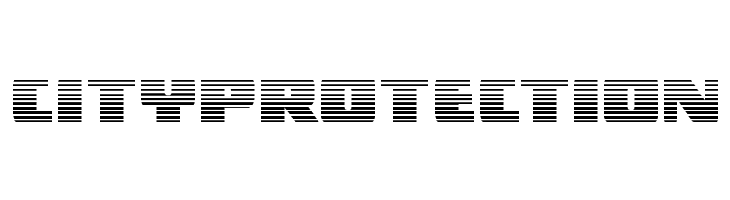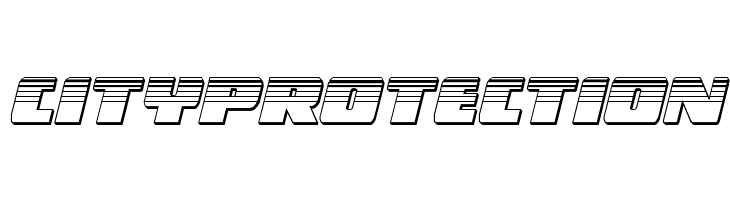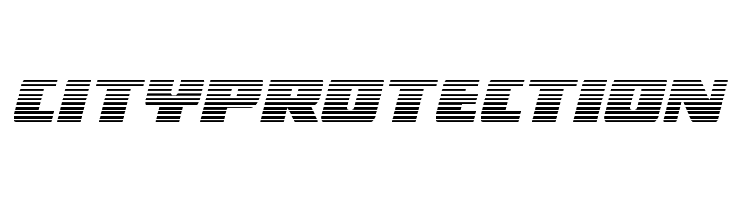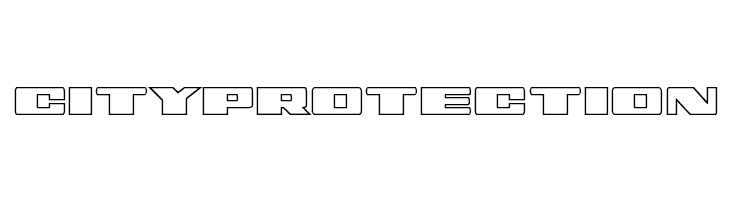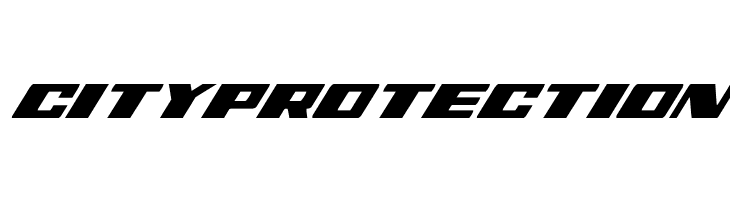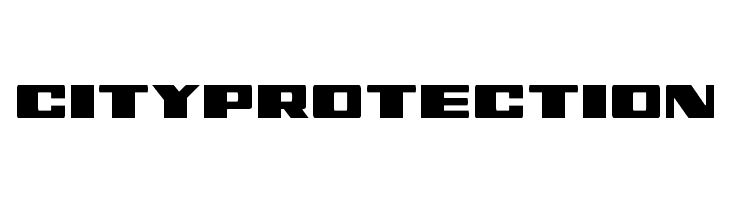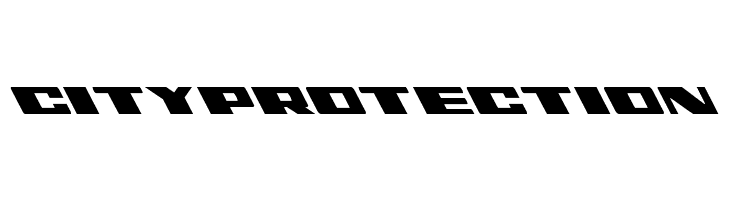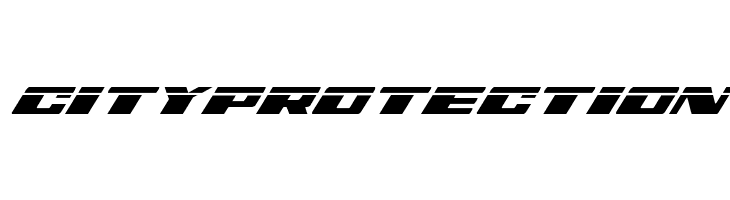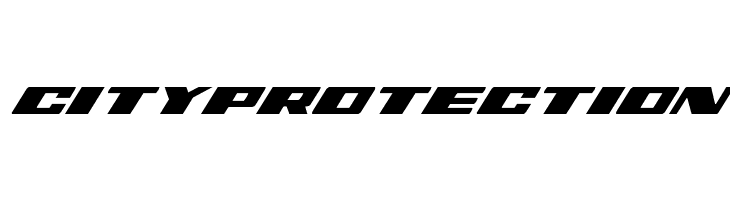
• Dark Alliance Gradient
A bold, futuristic font with a unique horizontal line gradient effect.
• Dark Alliance Gradient Italic
A bold, futuristic italic font with a gradient effect created by horizontal lines.
• Dark Alliance Halftone
A bold, futuristic font with a halftone effect and geometric structure.
• Dark Alliance Halftone Italic
A bold, italicized font with a halftone effect, offering a futuristic and dynamic style.
• Dark Alliance Italic
A bold, italicized font with a futuristic and angular design.
• Dark Alliance Laser
A bold, futuristic font with sharp angles and a geometric structure.
• Dark Alliance Laser Italic
A bold, futuristic italic font with sharp, angular edges.
• Dark Alliance Leftalic
• Dark Alliance Outline
A bold, geometric outline font with a futuristic and structured appearance.
• Dark Alliance Outline Italic
A bold, geometric outline font with an italic slant, offering a modern and dynamic look.
• Dark Alliance Platinum
A bold, futuristic font with a 3D effect and geometric design.
• Dark Alliance Platinum Italic
A bold, futuristic italic font with a three-dimensional effect and strong presence.
• Dark Alliance Regular